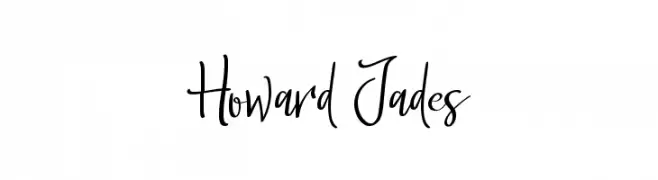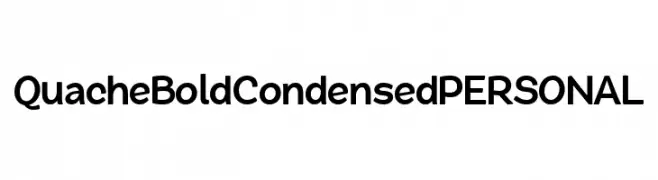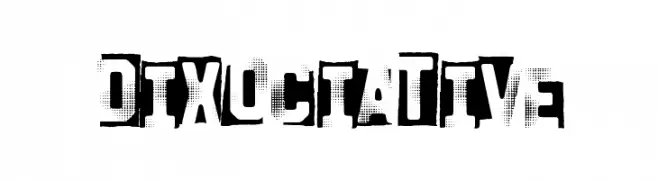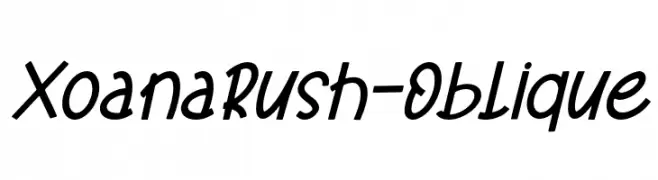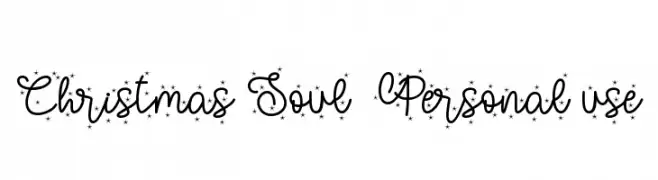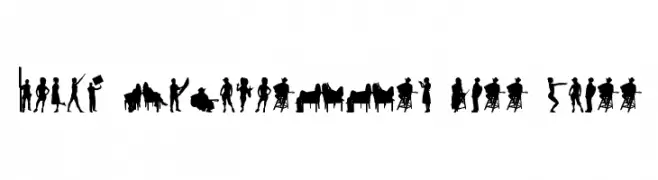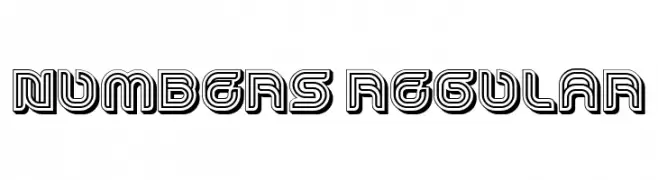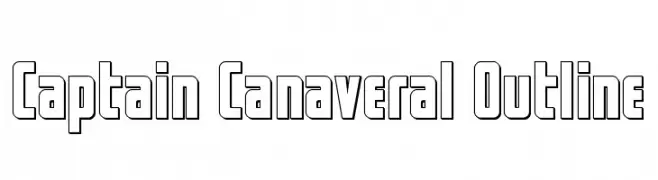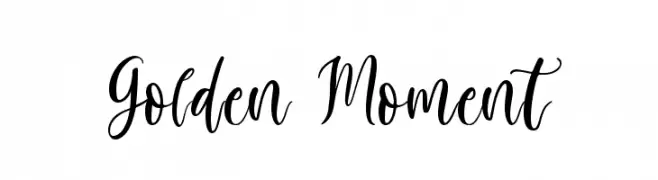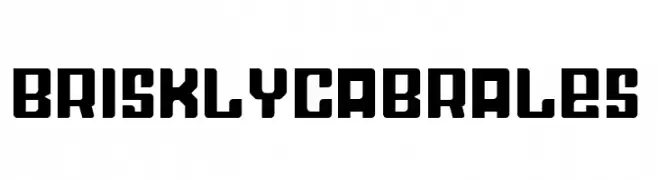
A bold, expressive script font with a playful, handwritten style.
A lively, handwritten font with dynamic strokes and playful loops.
A bold, condensed sans-serif font with a modern and clean design.
A lively and expressive handwritten font with fluid, dynamic strokes.
A bold, distressed font with a halftone pattern for a gritty, urban look.
A dynamic, oblique script font with fluid, connected characters.
A festive, decorative font with star embellishments and curly accents, perfect for holiday themes.
A bold, geometric outline font with a modern and dynamic style.
A bold, high-contrast italic font with a modern and dynamic style.
A bold, playful font with thick, rounded strokes and a whimsical style.
A bold, decorative font with a layered outline effect and geometric structure.
A fluid, cursive script font with elegant, connected strokes.
A bold, outlined font with a modern, futuristic style.
A modern, elegant script font with flowing, cursive letters.
A bold, brush-style font with expressive and dynamic strokes.
A bold, expressive script font with a handwritten style.
A playful and elegant handwritten script font.
A dynamic, handwritten font with expressive, fluid strokes.
A bold, geometric font with strong, angular lines and a modern aesthetic.
Bold, italic stencil-style font with angular, fragmented characters.
A modern, elegant script font with fluid, graceful strokes.
A modern, flowing handwritten font with elegant, connected characters.
A bold, geometric outline font with a futuristic and technical style.
A bold, geometric font with an expanded width and modern aesthetic.
A bold, decorative font with a three-dimensional outline and intricate detailing.
A fluid and elegant handwritten font with a cursive style.
A sleek, modern, thin italic font with expanded letterforms and minimal contrast.
A bold, textured brush font with an artistic and expressive style.
A modern, elegant font with high contrast and sleek, elongated characters.
A playful, bold script font with flowing, connected letterforms.
A flowing, elegant script font with a handwritten touch.
A playful, geometric font with rounded letterforms and a modern yet vintage appeal.